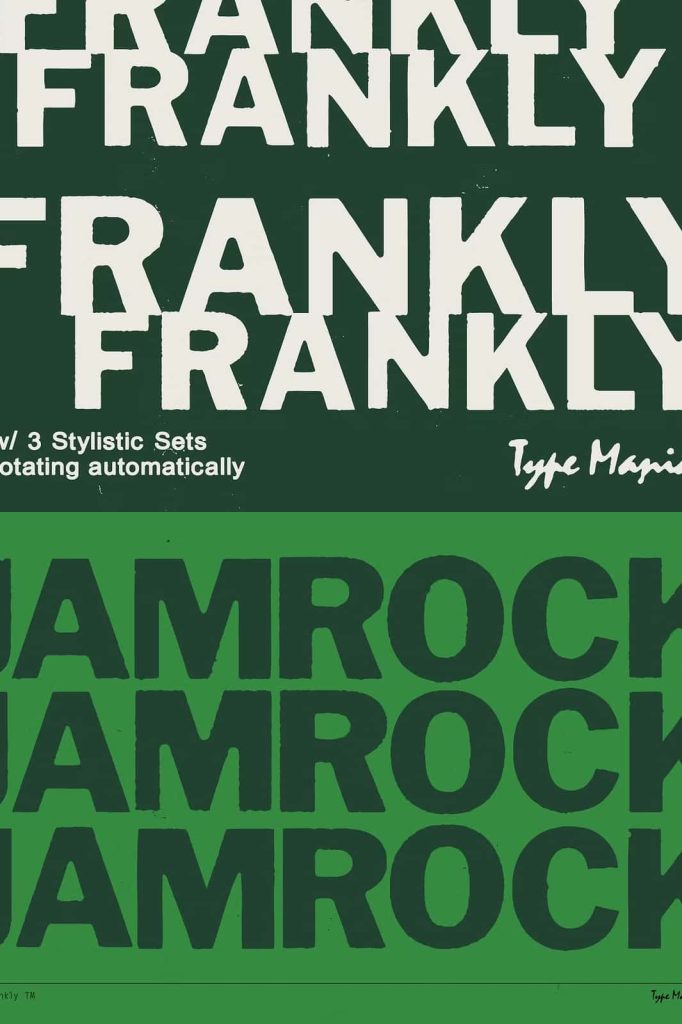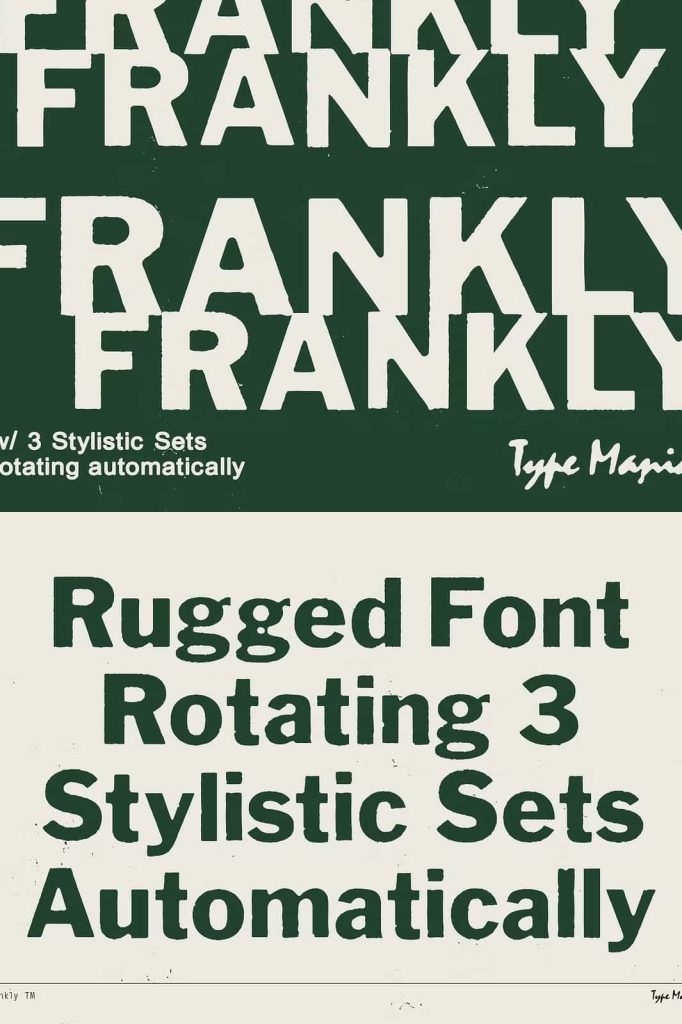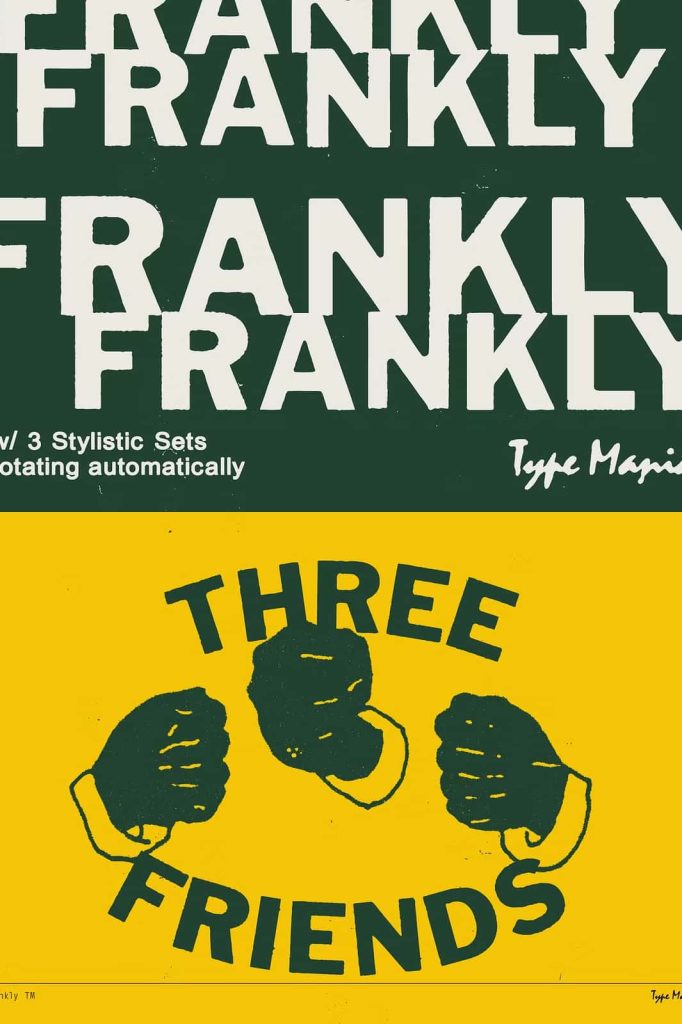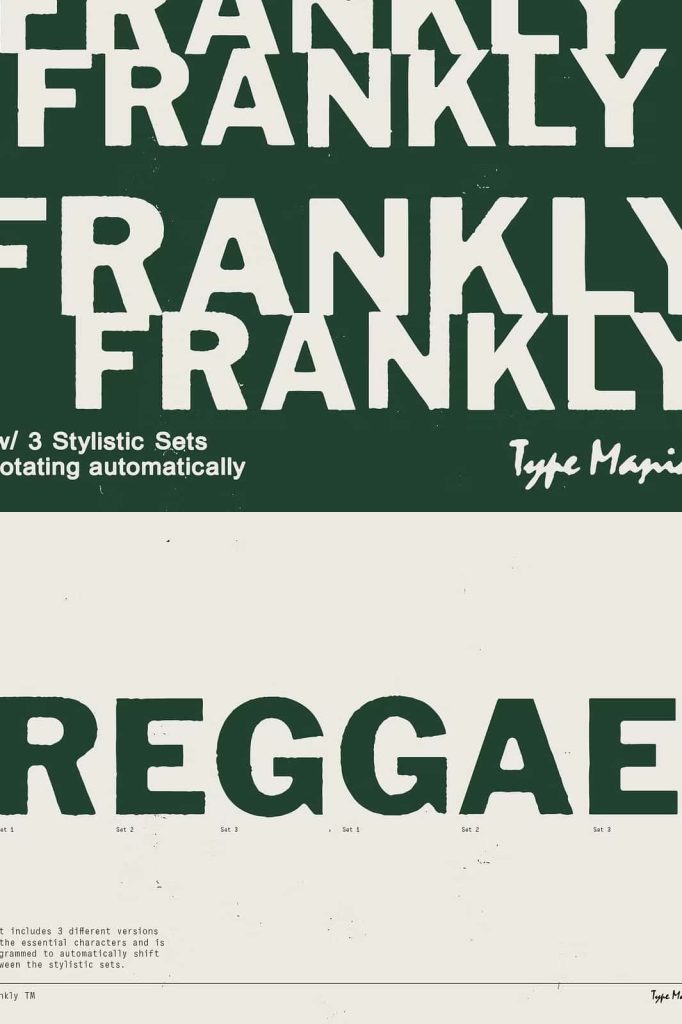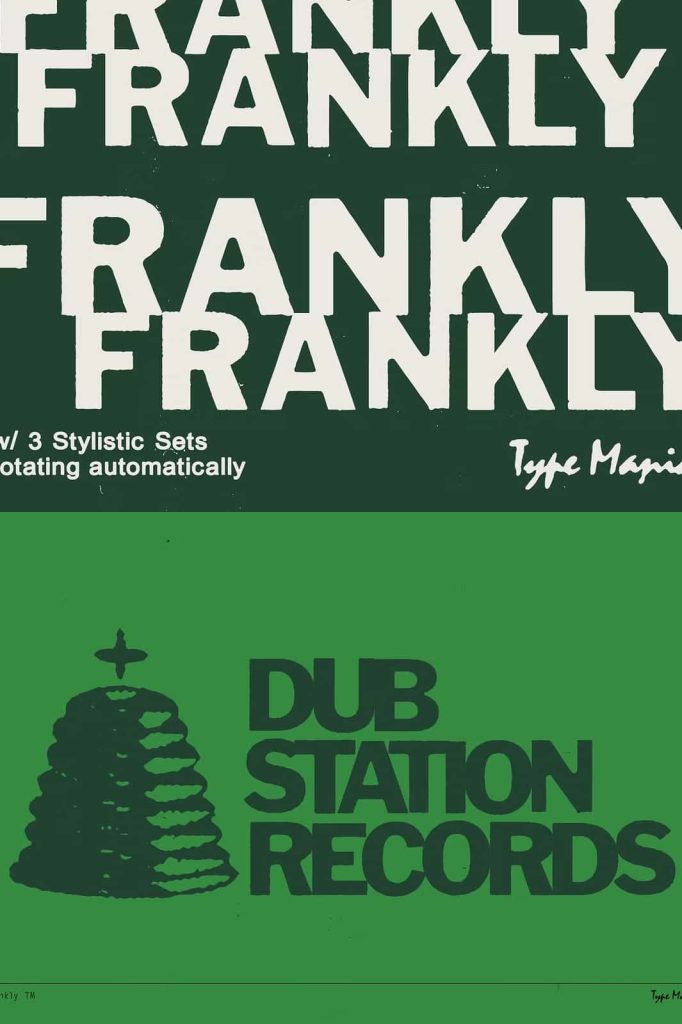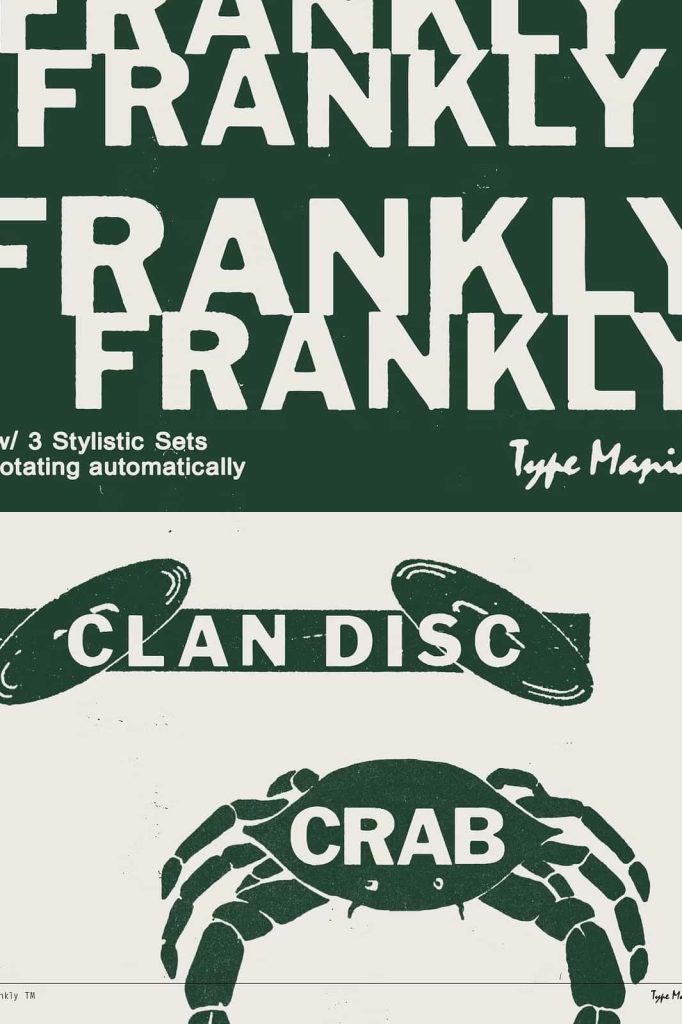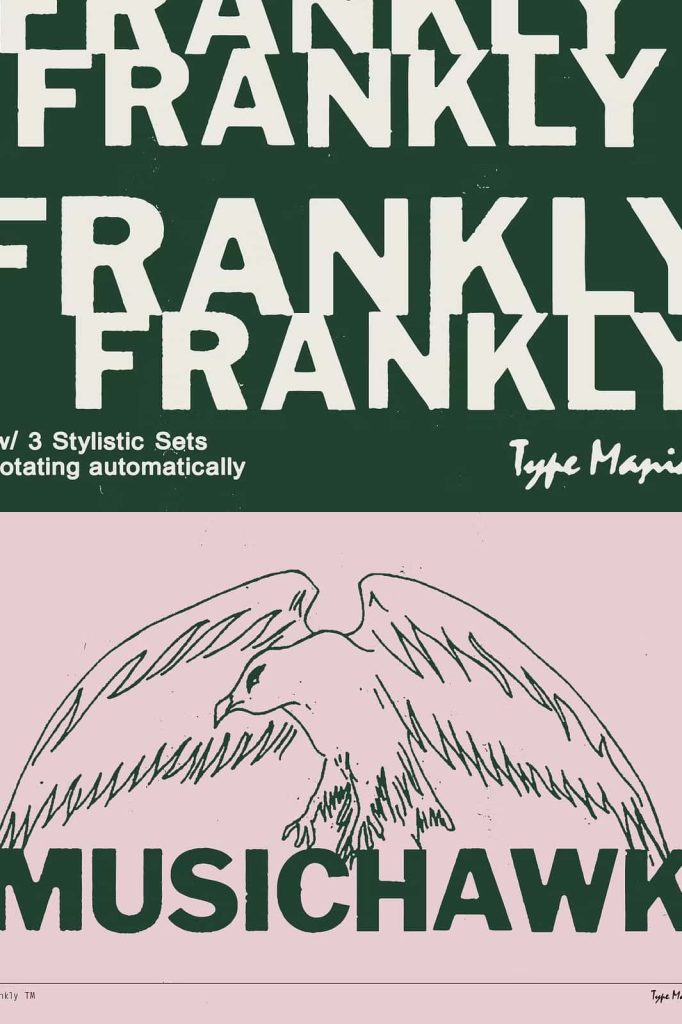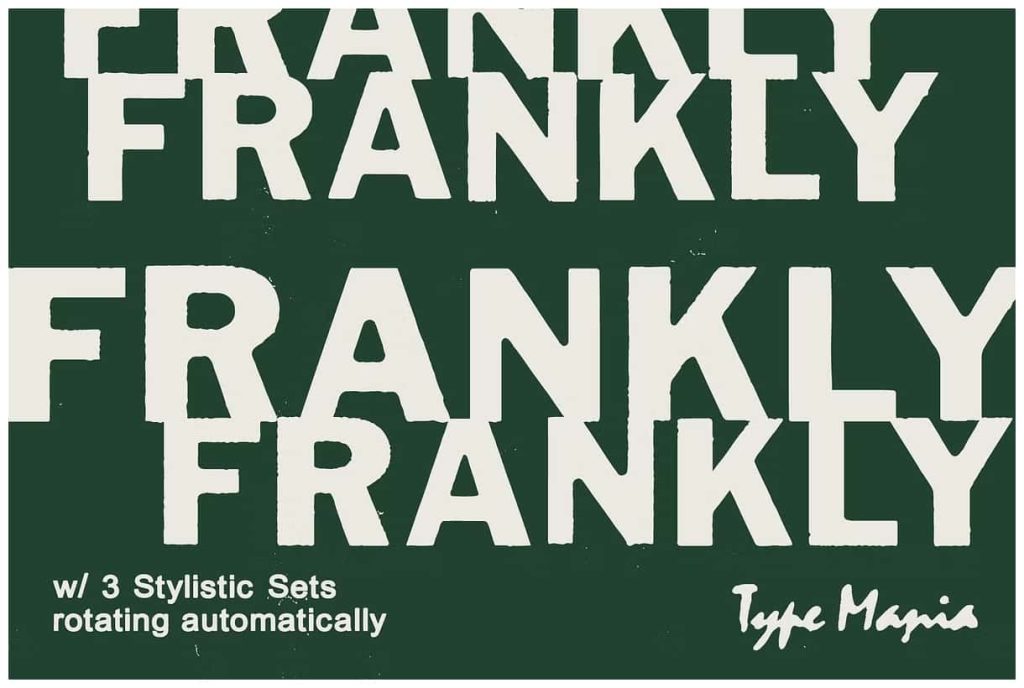
Frankly TM – Rugged Misprint FontleastedJanuary 21, 2025Fonts Frankly TM. the typeface naturally mimics the subtle imperfections of misaligned offset printing. Download